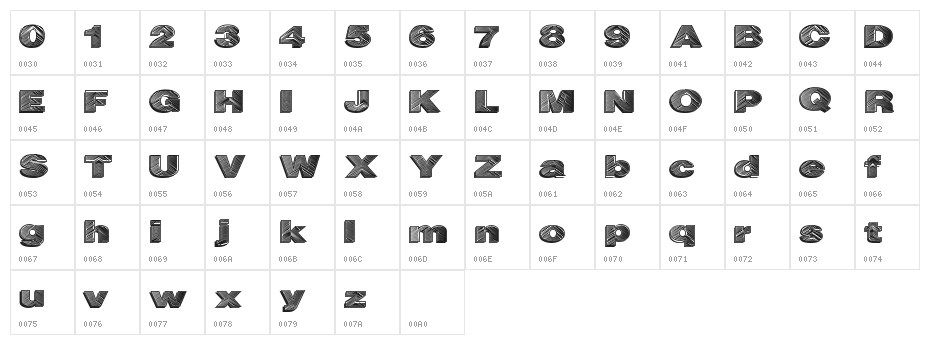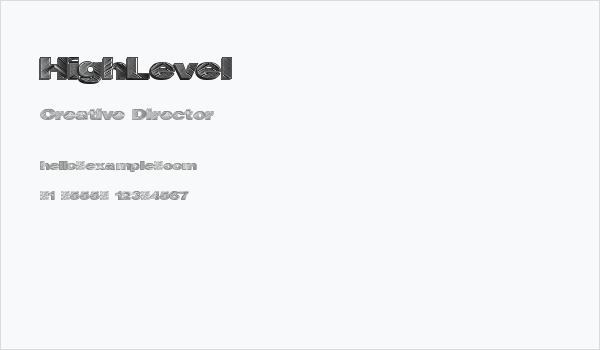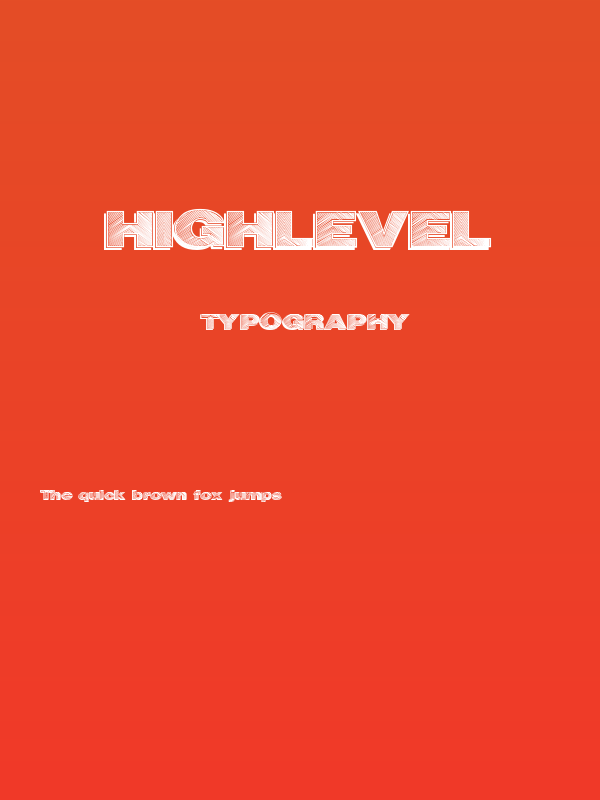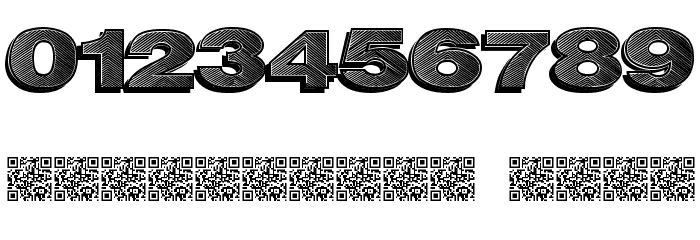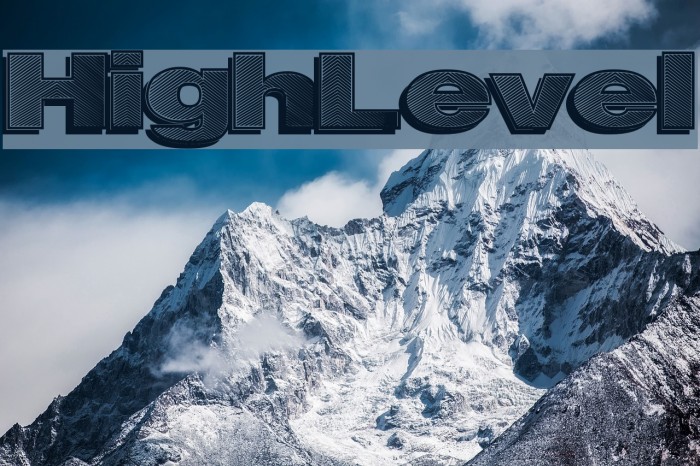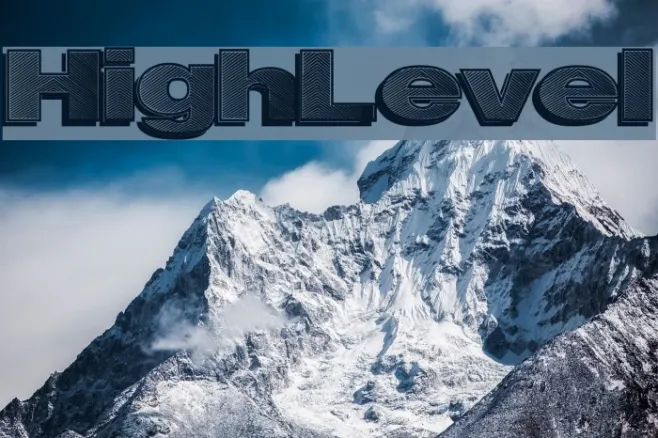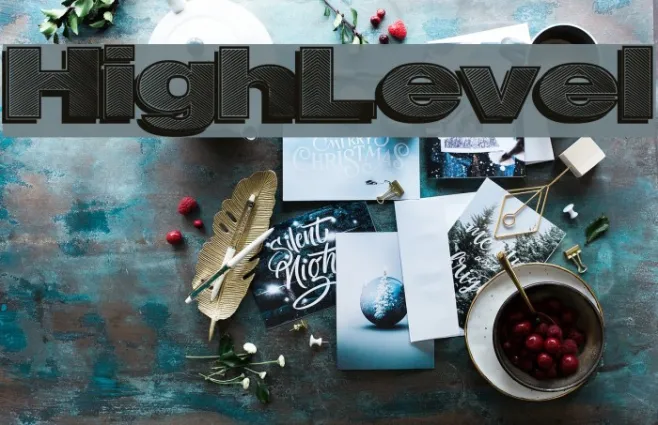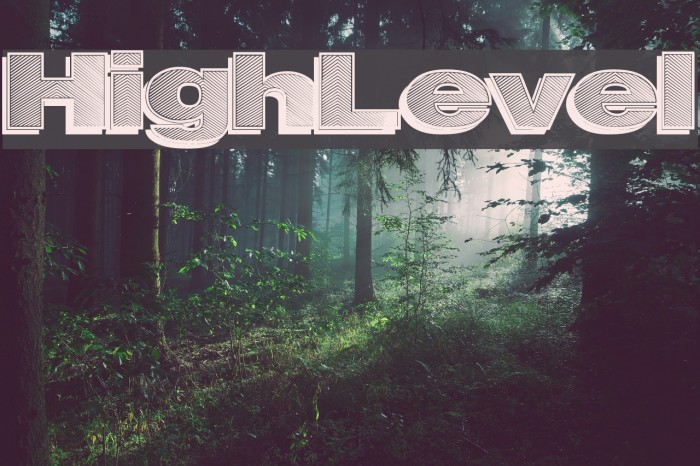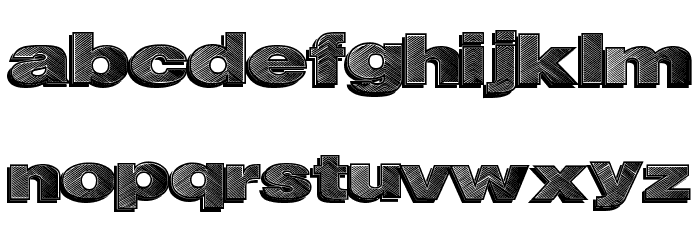
HighLevel Font
HighLevel Description
This font features a bold, three-dimensional appearance with a distinct diagonal line pattern across each character, giving it a textured and dynamic look. The characters are robust and impactful, making them stand out with a strong presence. The uppercase and lowercase letters maintain a consistent style, with the lowercase being slightly more rounded. The numbers follow the same bold and textured design, ensuring uniformity across all characters. This font's unique style is both modern and eye-catching, suitable for projects that require a strong visual impact.
| Proposed Projects | Ideal for posters, headlines, branding, and any design needing a bold statement. |